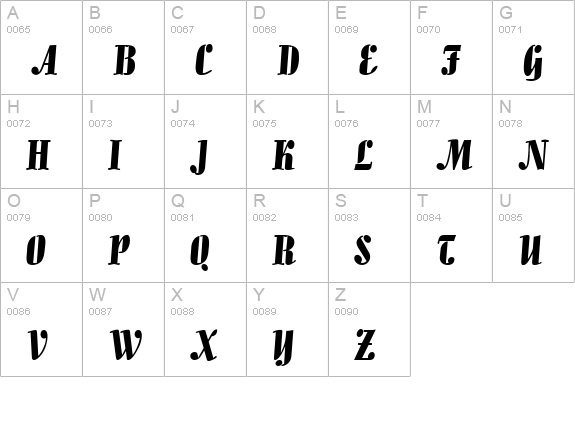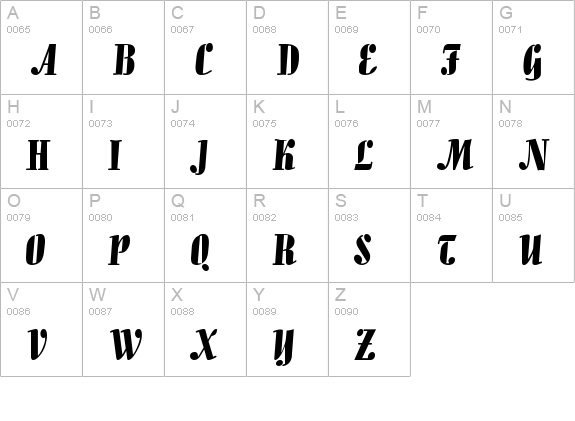
Allegro Regular Font Details
Allegro Regular is the standard, neutral variant in the Allegro typeface family \xE2\x80\x94 well suited to general body text, paragraphs, and standard typographic work.
Allegro Regular font is a timeless and elegant typeface that exudes sophistication and charm. Its classic yet modern design makes it perfect for a wide range of projects, from branding to editorial design. With its clean lines and balanced proportions, Allegro Regular is highly legible and versatile, making it a go-to choice for designers looking to add a touch of refinement to their work. The best part about Allegro Regular font is that it is available for free download at FontsMarket.com. This means that you can easily access this beautifully crafted typeface without any cost, making it an ideal option for both personal and commercial use. Whether you're working on a logo, website, or print design, Allegro Regular font will elevate your project with its sophisticated aesthetic and timeless appeal. Download it today and add a touch of elegance to your next design endeavor.